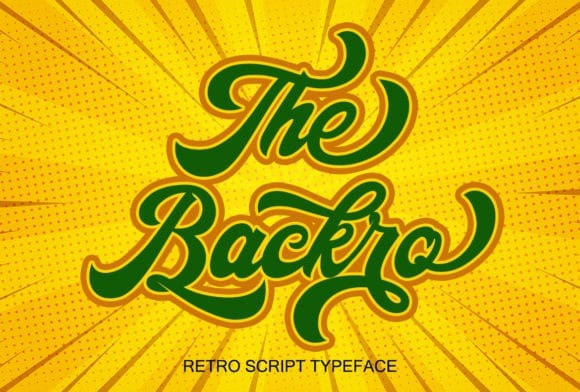
The Backro Calligraphy Font is a bold and flowing handwritten typeface, designed with the help of an outstanding brush pen. It features a varying baseline, smooth lines, gorgeous glyphs and stunning alternates. The Backro is a flowing handwritten font, described by an elegant touch, perfect for your favorite projects. Fall in love with its incredibly distinct and timeless style and use it to create spectacular designs!